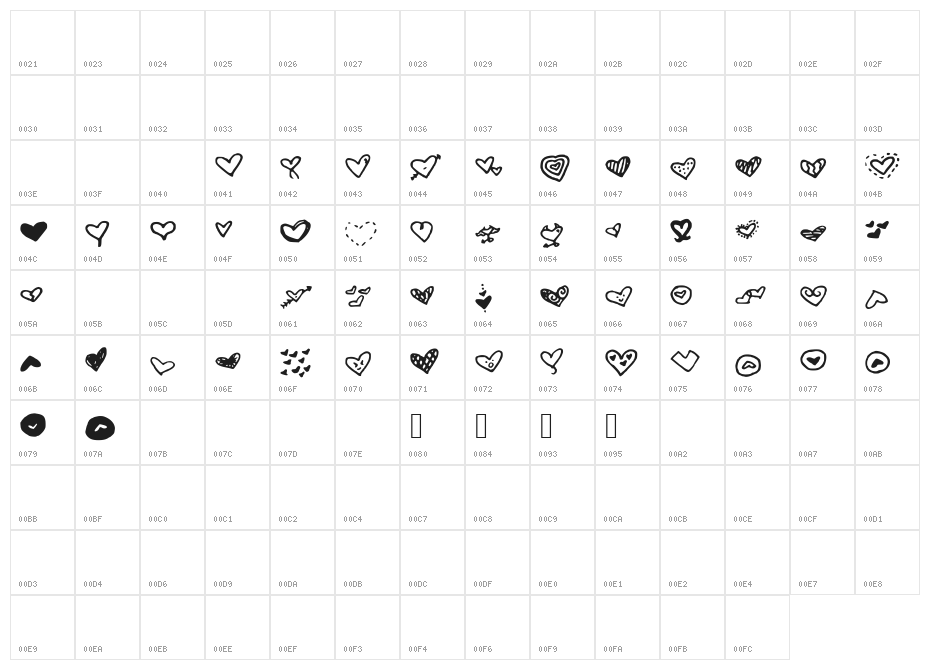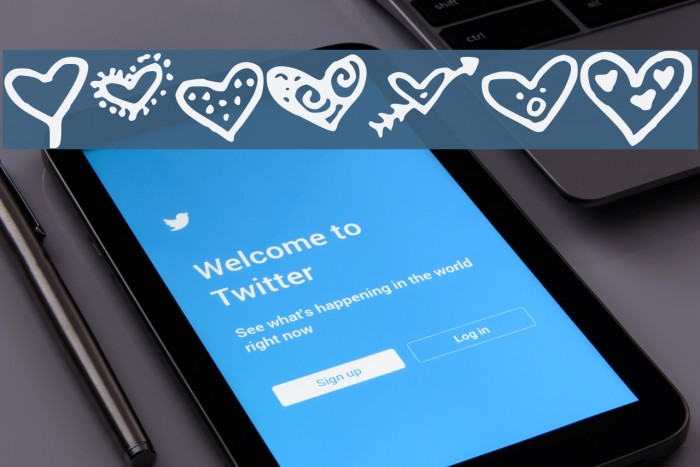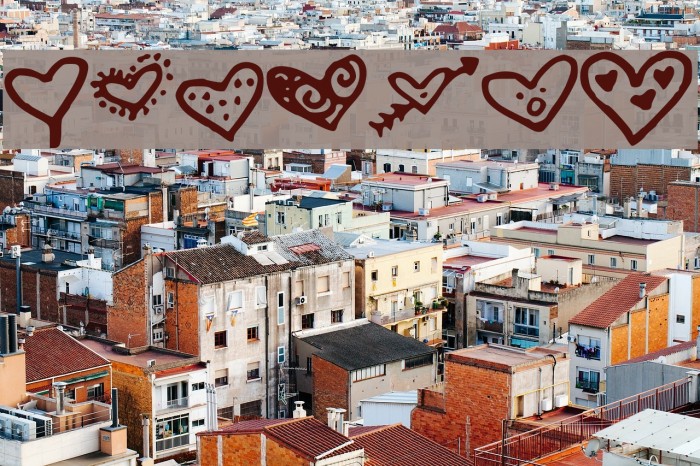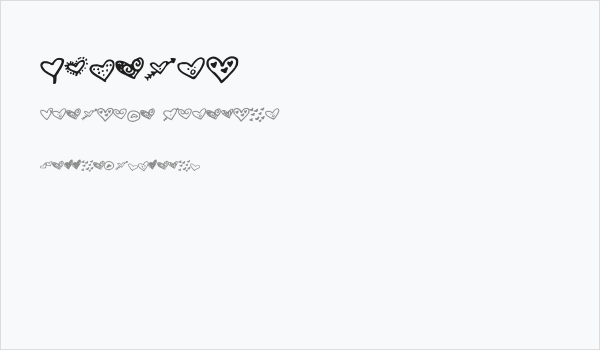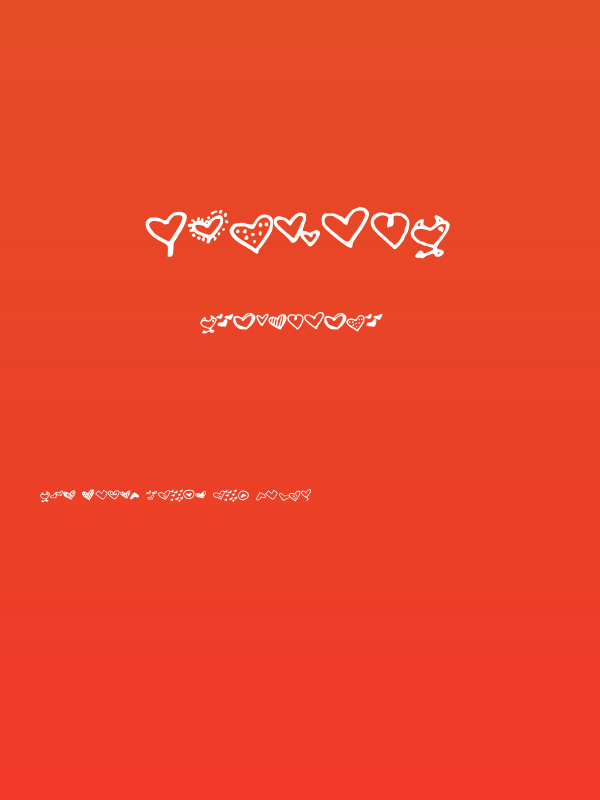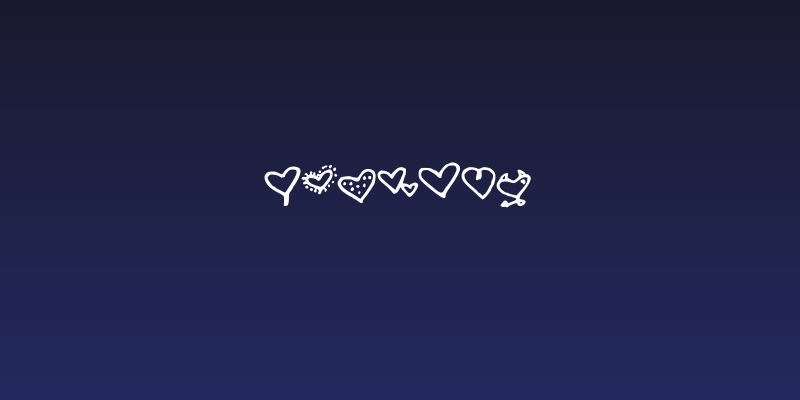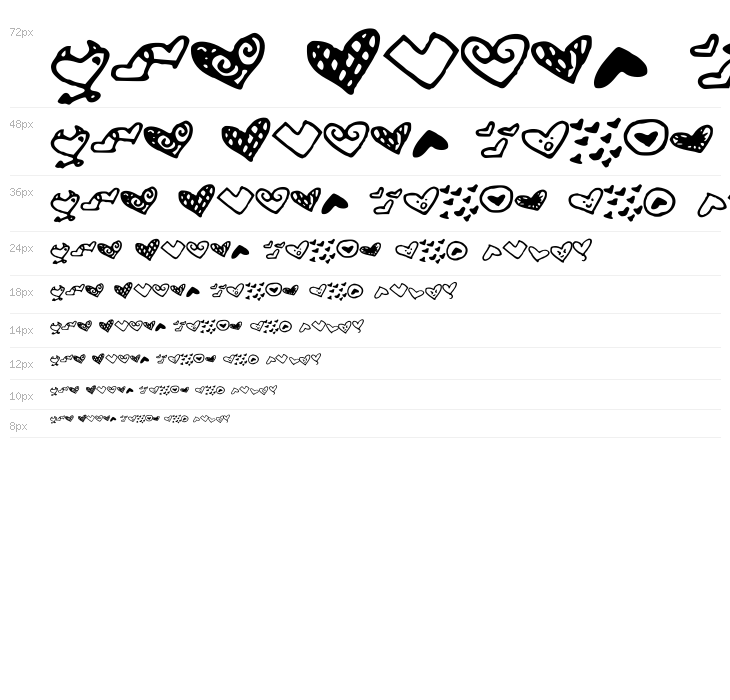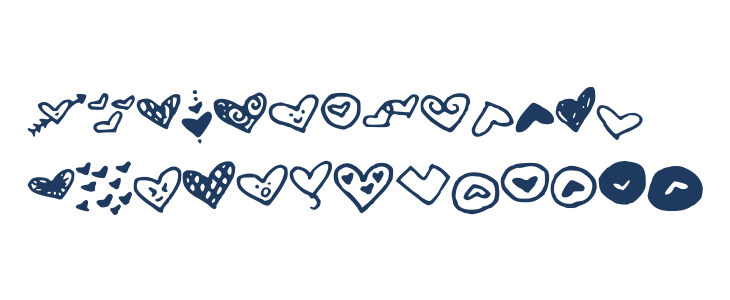
MWHeart Font
MWHeart Description
This collection features a playful and whimsical assortment of heart shapes, each with its own unique design. The hearts vary in style, incorporating elements such as arrows, polka dots, stripes, and outlines. Some hearts are filled, while others are merely outlined, offering a diverse range of visual textures. The overall aesthetic is hand-drawn and casual, making it ideal for projects that require a touch of charm and creativity. The variety in heart designs allows for versatile use, from romantic themes to playful and fun applications.
| Overall Style | Playful, Whimsical |
| Use Case | Decorative elements, Craft projects, Branding |
| Proposed Projects | Ideal for greeting cards, wedding invitations, Valentine's Day promotions, and playful branding materials. |